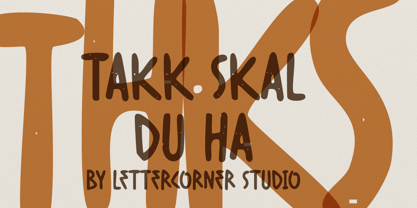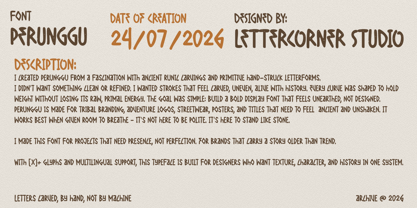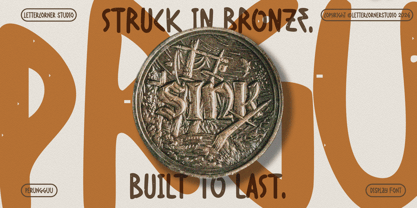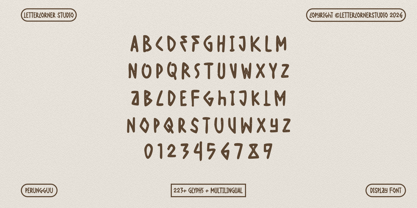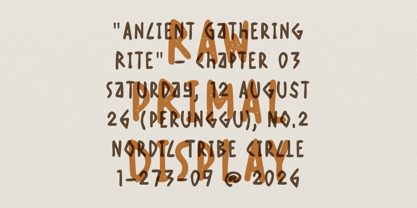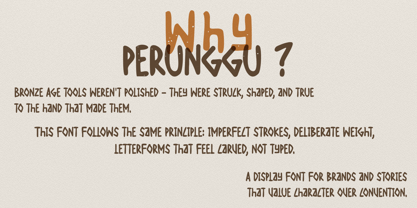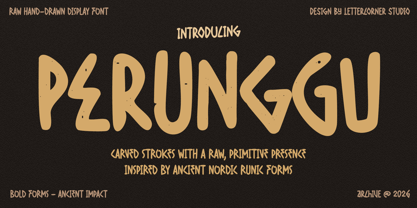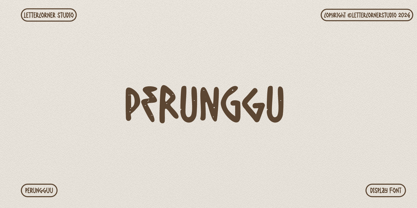
Perunggu
Perunggu — A bold, hand-carved display font inspired by ancient Nordic runes and Bronze Age craftsmanship.
Perunggu is a raw, hand-drawn display typeface built for brands and stories
that carry weight older than trend.
Inspired by ancient Nordic runic forms and the uneven, hand-struck marks of
Bronze Age tools, Perunggu was never meant to be clean or polished. Every
stroke was shaped with deliberate imperfection — carved, not typed — to
capture the raw, primal energy of letterforms that feel unearthed rather
than designed.
This isn't a font that whispers. Bold, angular, and unapologetically
textured, Perunggu is built to hold space on large headlines, tribal and
heritage branding, adventure logos, streetwear graphics, posters, packaging,
and any project that needs to feel ancient, confident, and unshaken.
With 223+ glyphs and multilingual support, Perunggu gives designers the
full toolkit to bring raw, primitive character into modern typography
systems — without sacrificing usability.
FEATURES:
- 223+ glyphs, including uppercase, lowercase, numerals & punctuation
- Multilingual language support
- Best used large — display headlines, logotypes, posters, packaging
- Ideal for: tribal branding, adventure & outdoor brands, streetwear,
editorial titles, heritage-inspired identities